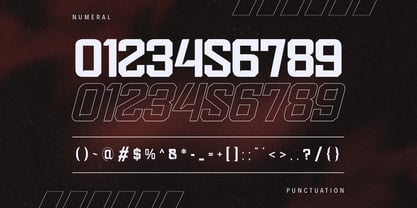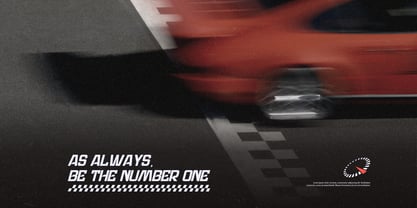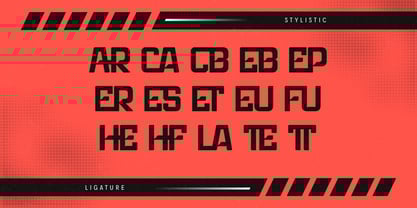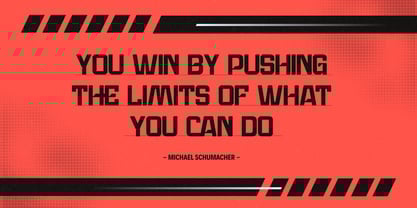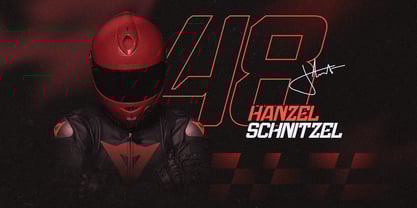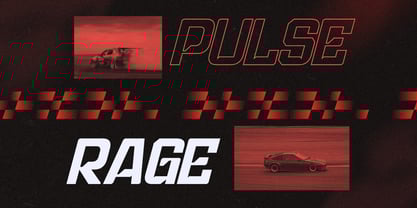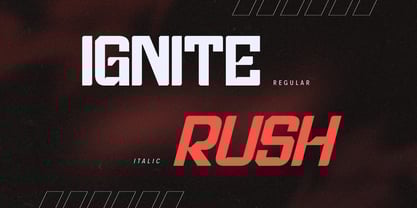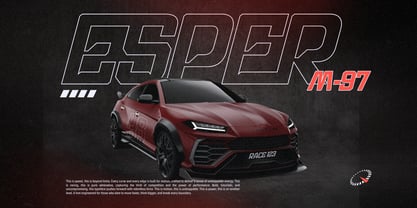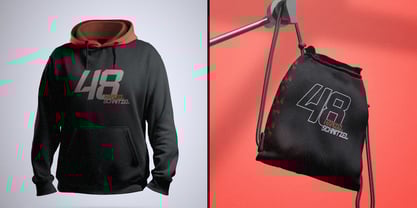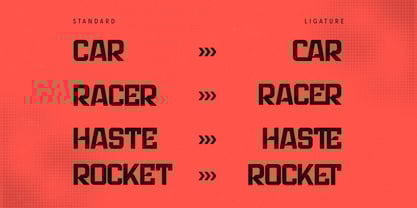
Sport Formula
by Nirmana Visual
The Sport Formula Font Family was designed by Sigit Dwipa and published by Nirmana Visual. Sport Formula contains 2 styles and family package options.
Sport Formula is a bold and dynamic typeface built for speed and precision. Designed with both Regular and Italic styles, it captures the energy of car racing and motorsport culture. Its sleek lines and aerodynamic curves make it perfect for branding, racing team logos, car decals, uniforms, and performance gear. Sport Formula embodies power, motion, and victory—ideal for any design that demands a fast and competitive edge.